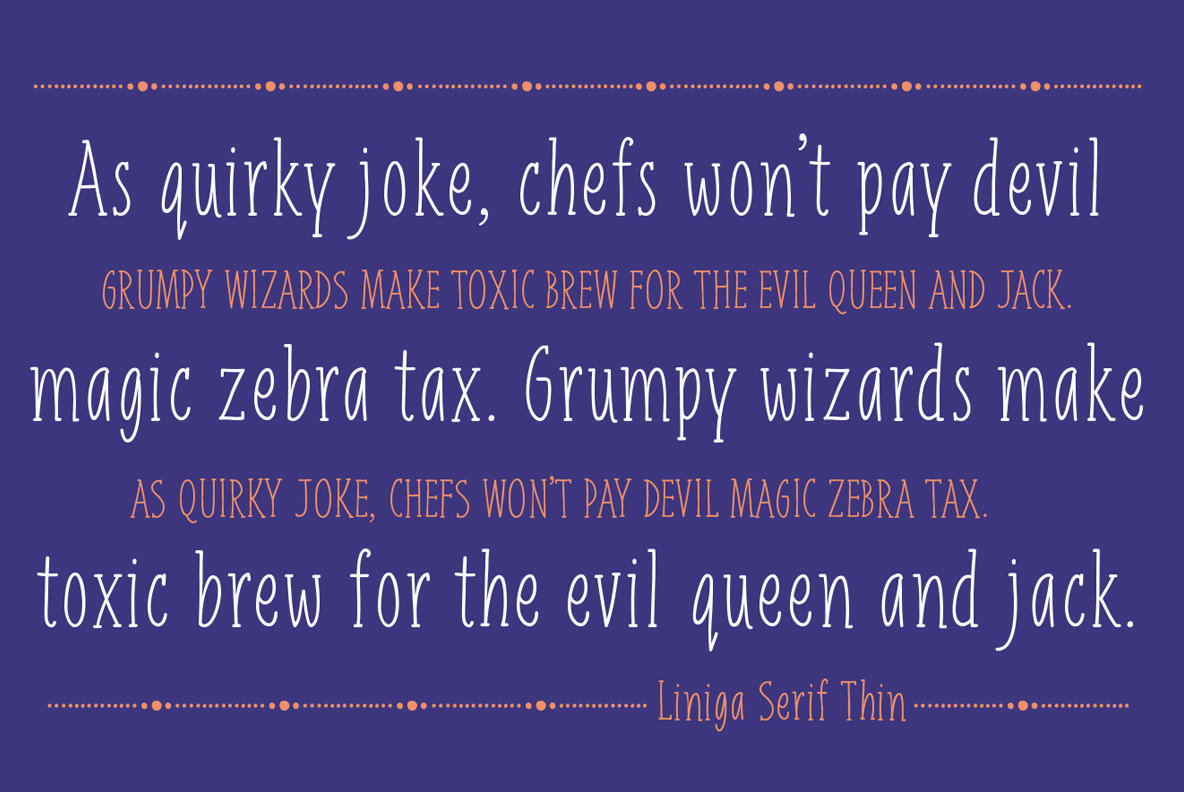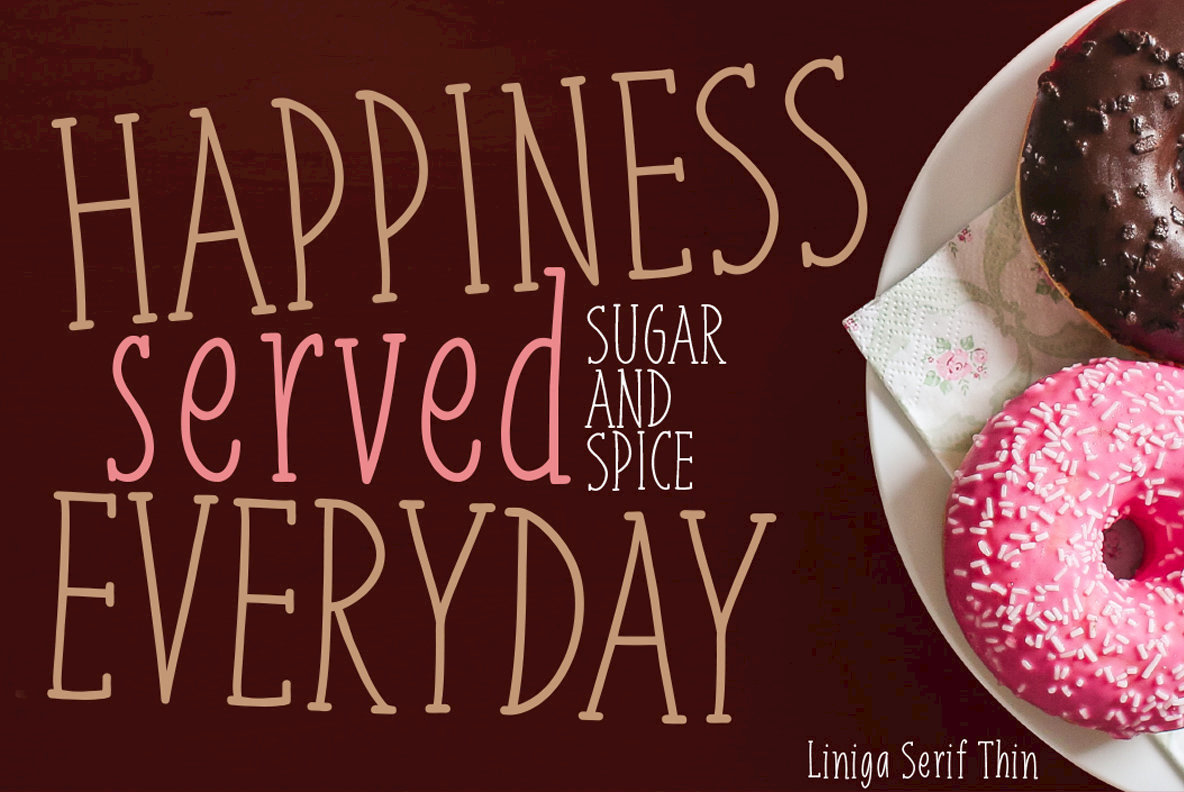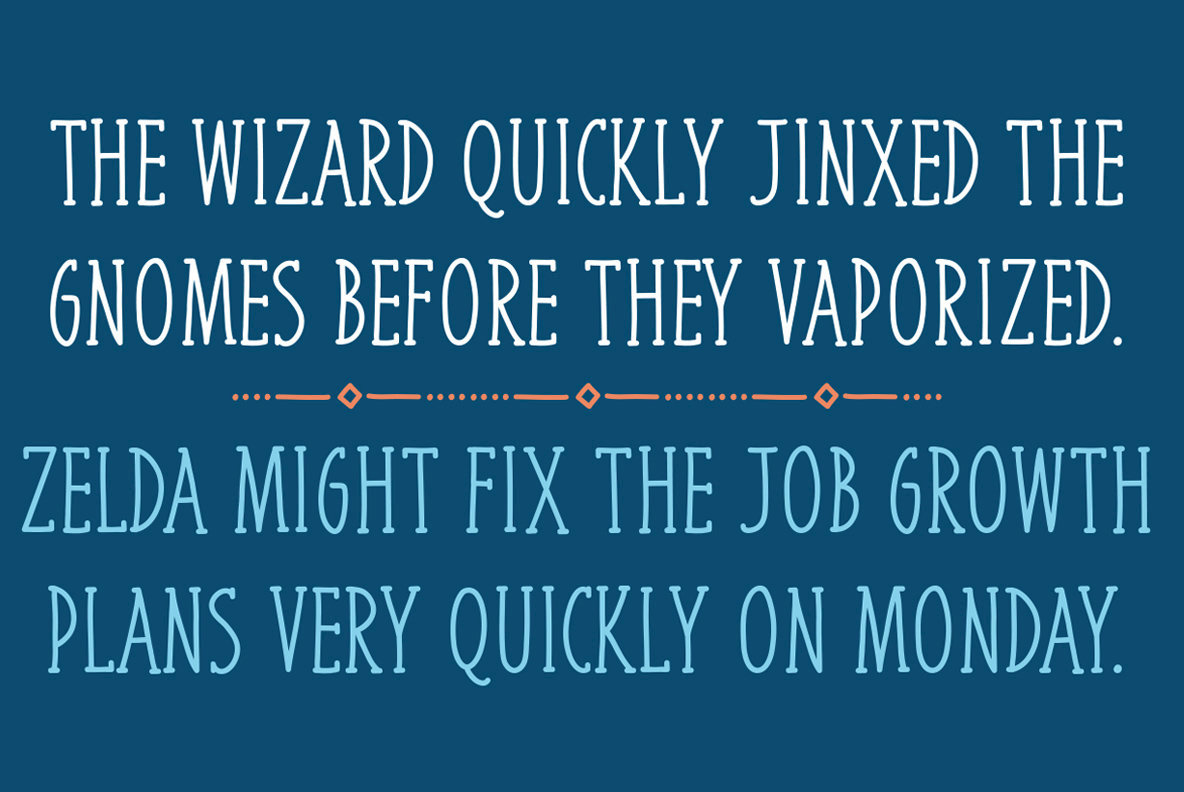
Liniga Serif Font
Liniga Serif Thin
Liniga Serif Thin Italic
Liniga Serif
Liniga Serif Italic
Linger Serif is a tall and friendly handwritten typeface with a simple structure and low contrast. It is the serif version of Liniga. Works well for both display and body text.